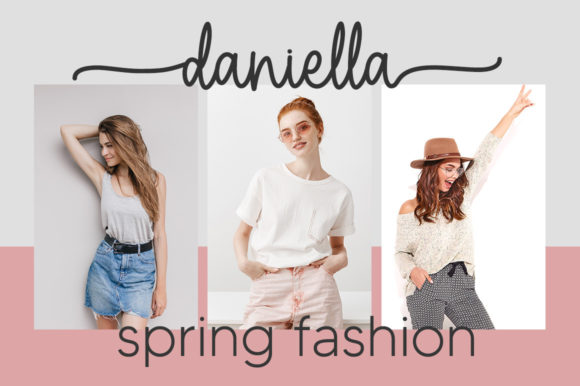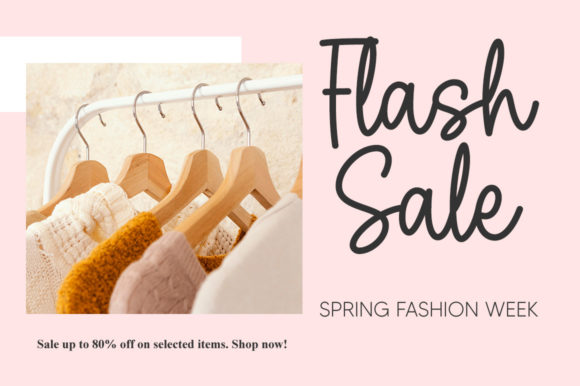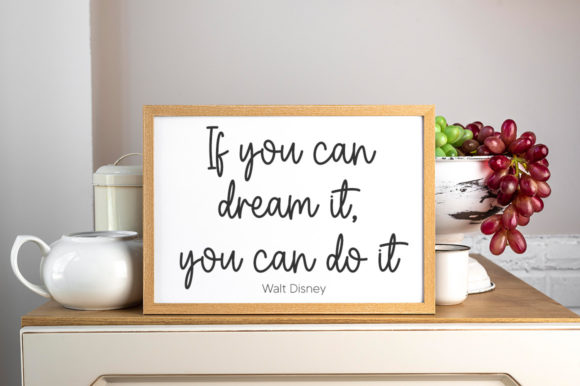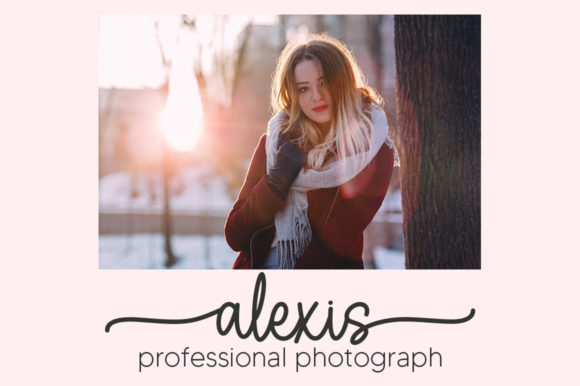
About Julietta Font
Julietta is a beautiful, well-balanced, and new-style script font. It is defined by smooth curves and is perfect for fashion branding or editorial designs. This font is PUA encoded, which means you can access all glyphs and swashes with ease!